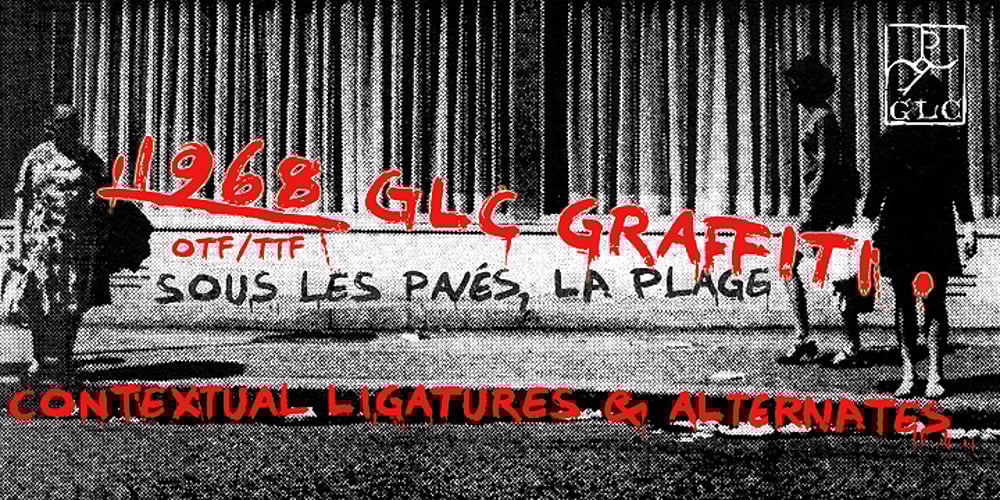
1968 GLC Graffiti Font Family was designed by published by GLC. 1968 GLC Graffiti contains 1 styles and family package options. This font was inspired by the paint brushed letters in use in the 60 – 70s for protest slogans tagged on the cities walls. In those days, we didn’t commonly use aerosols like today, so we used paint brushes, with paint or tar cans, drew the letters, and ran away quickly ! Capitals and lower case have the same size, and a lot of alternates characters or ligatures allows the user to vary each letter (until tree alternates for single letters) in each word of a text . Likewise, the words may be easily underscored or intersected by a few stains looking like paint spots, substituted to the following standards characters: [greater], [less], [dagger], [backslash], [bullet], and [underscore].